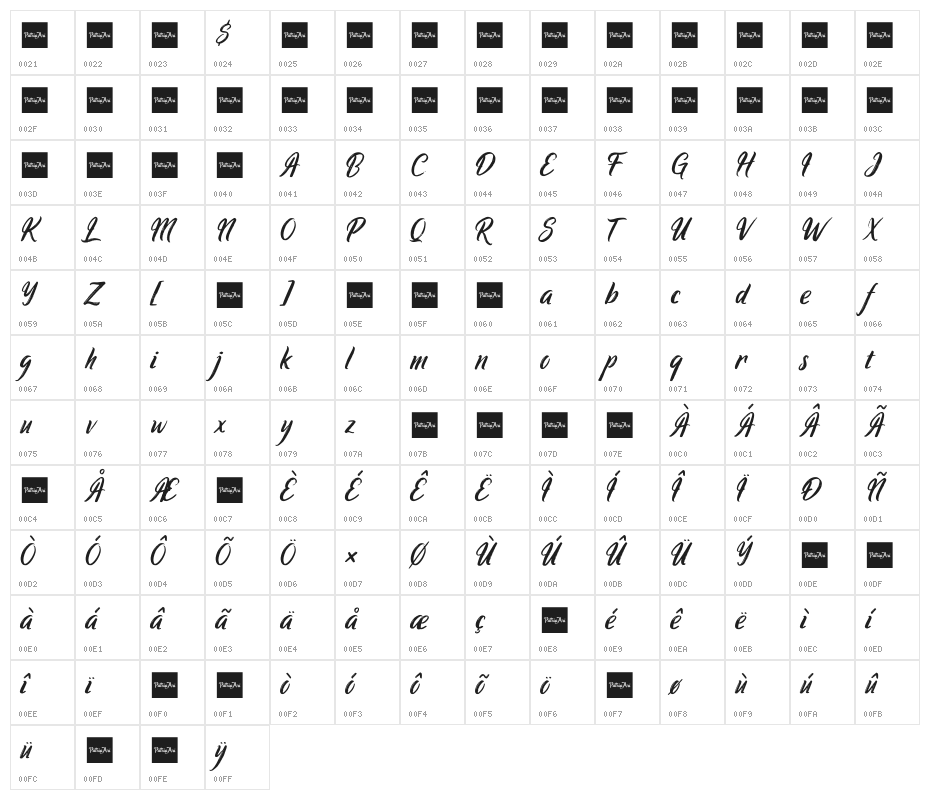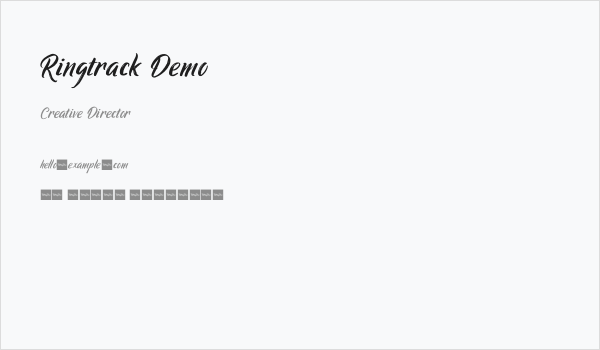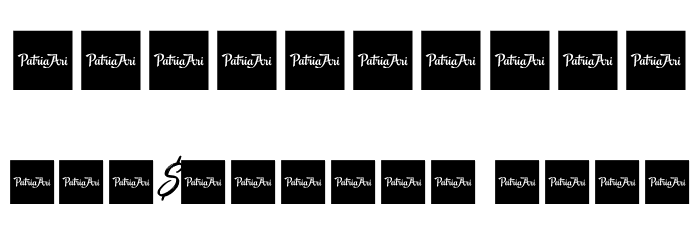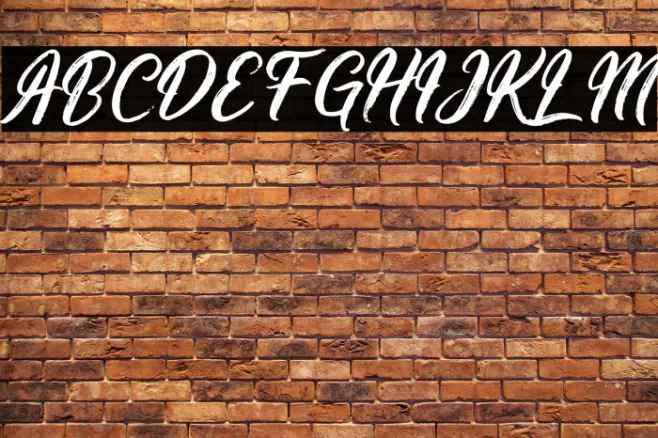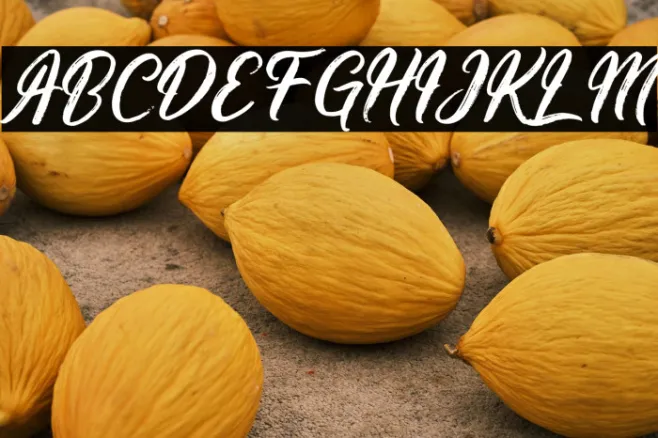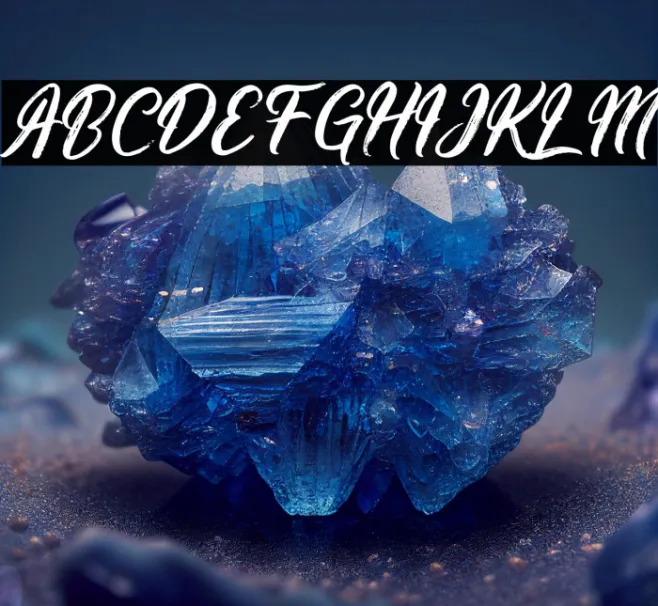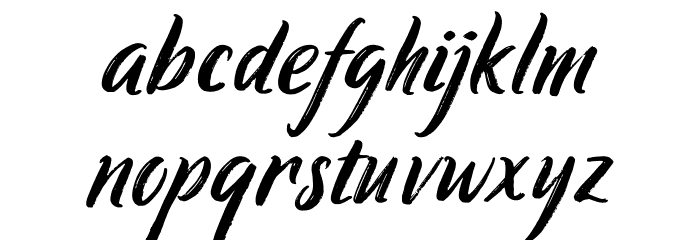
Ringtrack Demo Font
Ringtrack Demo Description
This font exhibits a dynamic and expressive script style, characterized by its fluid and cursive letterforms. The strokes are bold and confident, with a slight slant that adds a sense of motion and elegance. The uppercase letters are particularly striking, with sweeping curves and flourishes that give them a dramatic flair. The lowercase letters maintain a consistent flow, enhancing readability while preserving the artistic quality of the design. The numbers and special characters are crafted with the same attention to detail, ensuring a cohesive look across all elements. This font's unique style makes it suitable for creative and artistic projects where a touch of sophistication is desired.
RINGTRACK-DEMO UPPERCASE
RINGTRACK-DEMO LOWERCASE
RINGTRACK-DEMO OTHER CHARS